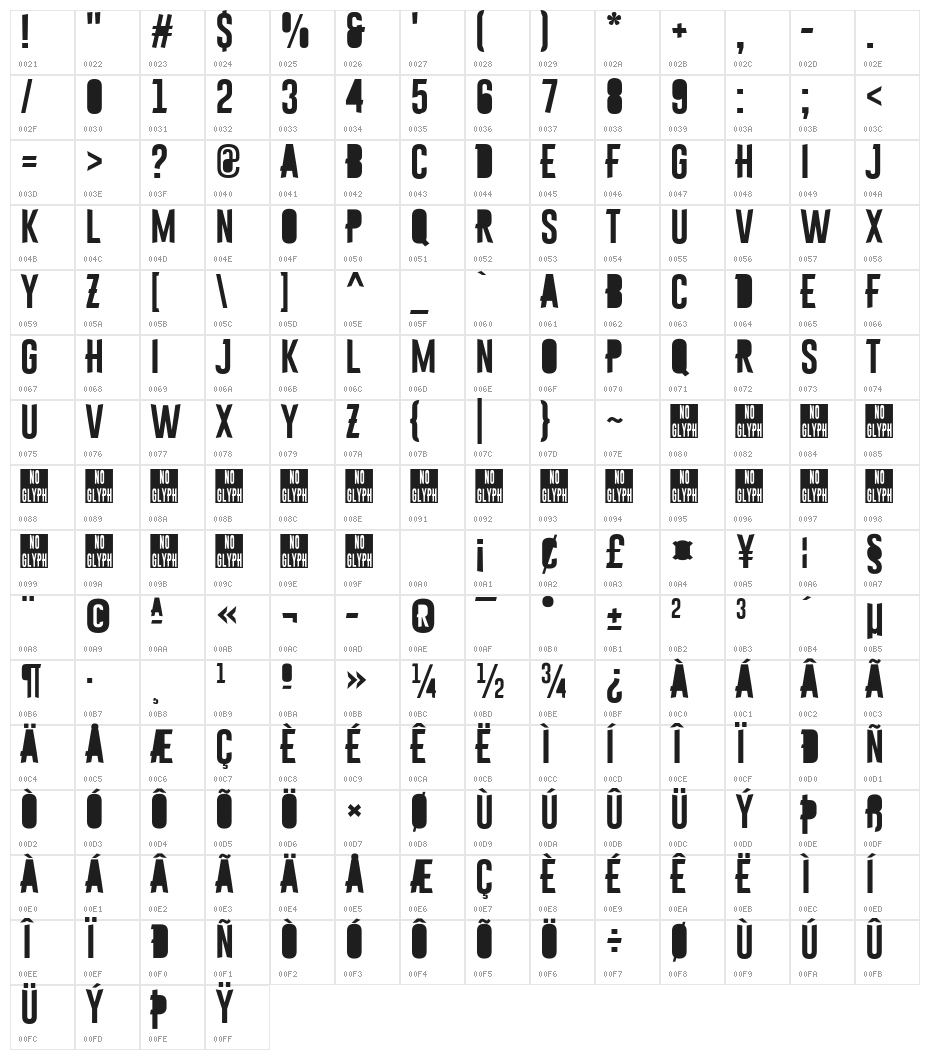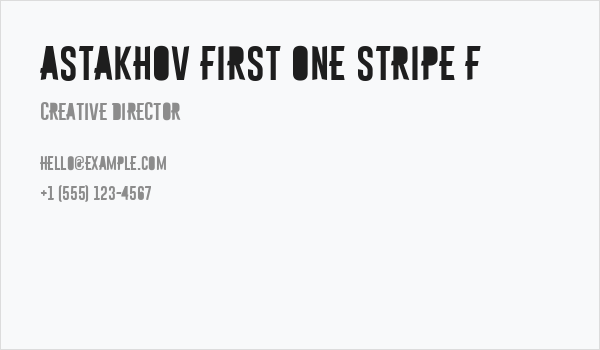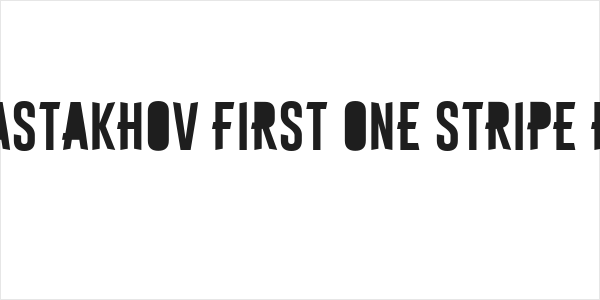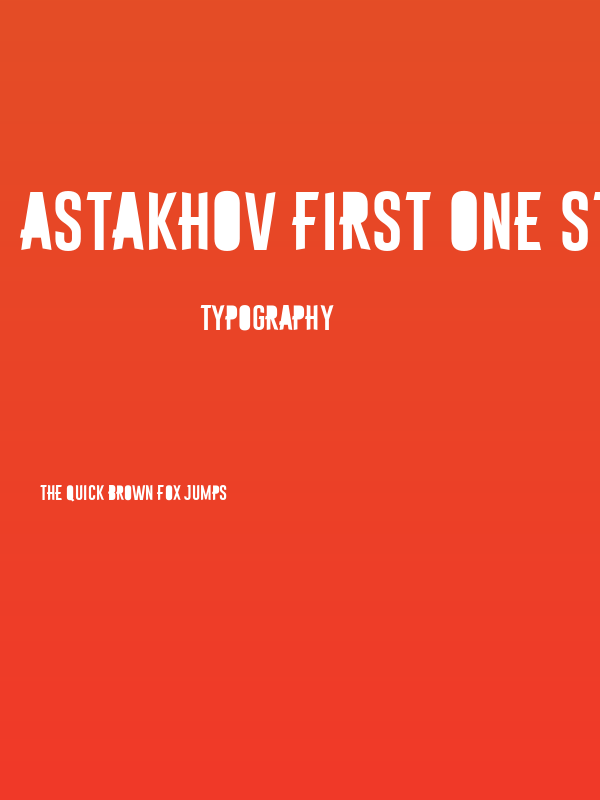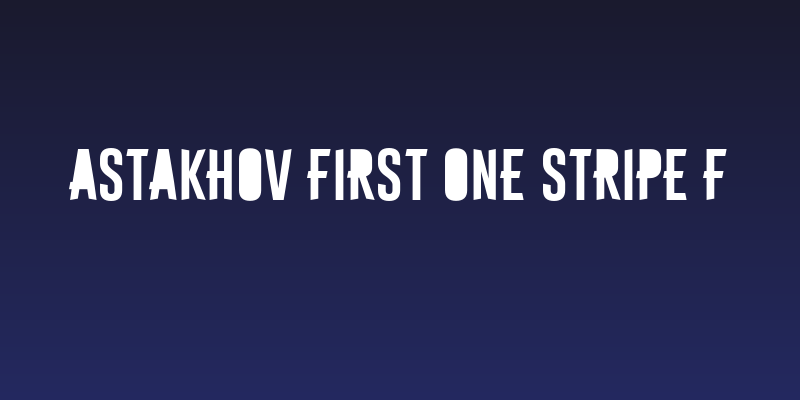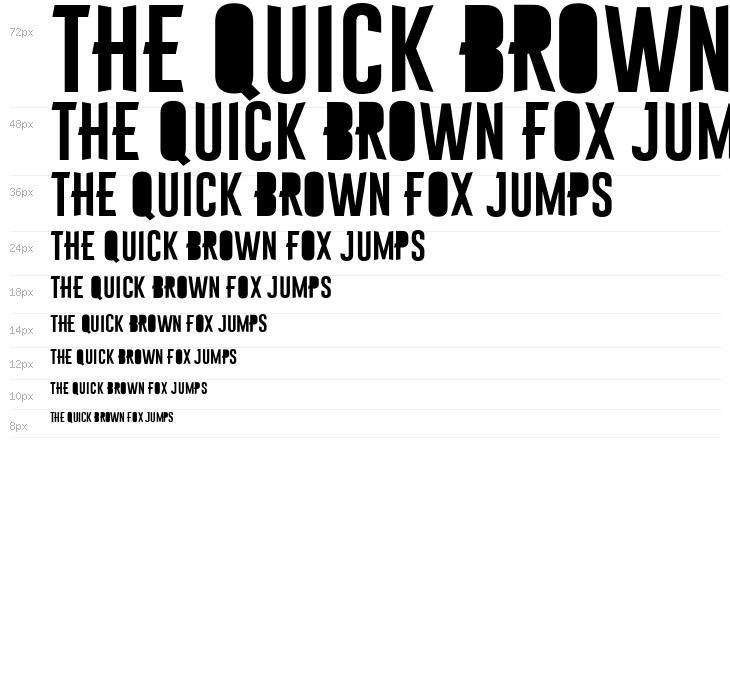
Astakhov First One Stripe F Font
Astakhov First One Stripe F Description
This font features a bold and striking design with a strong presence. The characters are thick and blocky, with a distinct geometric style that emphasizes vertical and horizontal lines. The uppercase letters are particularly prominent, with a uniform height and width that creates a cohesive look. The lowercase letters maintain the same boldness, ensuring readability and consistency. Numbers and special characters are designed to match the overall aesthetic, making them stand out while remaining legible. This font is ideal for making a statement, with its high-impact appearance and modern edge.
| Proposed Projects | Ideal for posters, headlines, branding, and any project requiring a bold statement. |